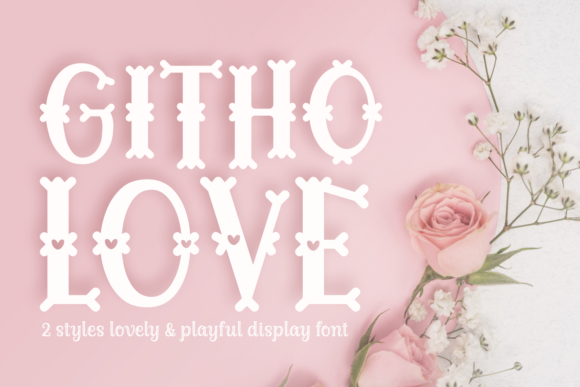
Githo Love Font: Elevate Your Design with Elegance and Sophistication
In the realm of typography, few fonts manage to strike a balance between tradition and modernity as effectively as Githo Love. This distinct, elegant display font has been crafted to blend traditional influences seamlessly into a contemporary aesthetic, offering designers a unique tool to elevate their projects. With its well-balanced Latin details and distinctive contrasts, Githo Love is poised to bring an exquisite, yet subtle look to a wide array of design applications.
The Essence of Githo Love Font
Githo Love is not just another font; it’s an experience. Its creation is rooted in the desire to marry the classic elements of traditional typography with the clean, minimalist approach of modern design. This blend results in a font that exudes elegance and sophistication, making it perfect for projects that demand a high level of refinement.
One of the standout features of Githo Love is its distinctive contrasts. These contrasts are not just visually appealing; they also contribute to the font’s readability and versatility. Whether you’re working on a luxury brand’s logo, an elegant wedding invitation, or a sophisticated website, Githo Love can adapt to your design needs, offering maximum versatility.
Design Characteristics of Githo Love
Githo Love boasts several design characteristics that set it apart from other display fonts. Its Latin details are meticulously crafted to ensure balance and harmony, creating a visually pleasing effect. The font’s lines are clean, its curves are graceful, and its overall structure is well-proportioned.
- Elegant and Refined: Githo Love embodies elegance and refinement, making it suitable for high-end designs.
- Distinctive Contrasts: The font features distinctive contrasts that enhance its visual appeal and versatility.
- Well-Balanced Latin Details: The meticulous crafting of Latin details ensures a balanced and harmonious look.
- Contemporary Aesthetic: Despite its traditional influences, Githo Love boasts a contemporary aesthetic that fits well with modern design trends.
Applications of Githo Love Font
The versatility of Githo Love makes it suitable for a wide range of design applications. Here are some of the areas where Githo Love can make a significant impact:
- Branding and Logos: For businesses aiming to project an image of luxury and sophistication, Githo Love can be a valuable asset.
- Wedding and Event Invitations: The font’s elegant and refined nature makes it perfect for wedding invitations, event posters, and other ceremonial designs.
- Web Design: Githo Love can add a touch of elegance to website headers, titles, and other textual elements, enhancing the overall user experience.
- Print Design: From luxury product packaging to high-end magazine layouts, Githo Love can elevate the aesthetic of various print materials.
Why Choose Githo Love?
In a world where design trends are constantly evolving, having a font that can stand the test of time is invaluable. Here are a few reasons why Githo Love should be a part of your design arsenal:
- Timeless Elegance: Githo Love’s classic influences ensure it remains elegant and relevant across various design trends.
- Versatility: Its adaptability to different design contexts makes it a versatile tool for any designer.
- Readability: Despite its elegant and refined nature, Githo Love maintains a high level of readability, making it practical for a wide range of applications.
Githo Love is more than just a font; it’s a design statement. Its unique blend of traditional influences and contemporary aesthetics, coupled with its distinctive contrasts and well-balanced Latin details, make it an exquisite addition to any design project. Whether you’re aiming to create a luxurious brand image, an elegant event invitation, or a sophisticated website, Githo Love offers the versatility and elegance needed to achieve your design goals. Incorporate Githo Love into your projects and experience the elevation of your design to new heights of sophistication and elegance.